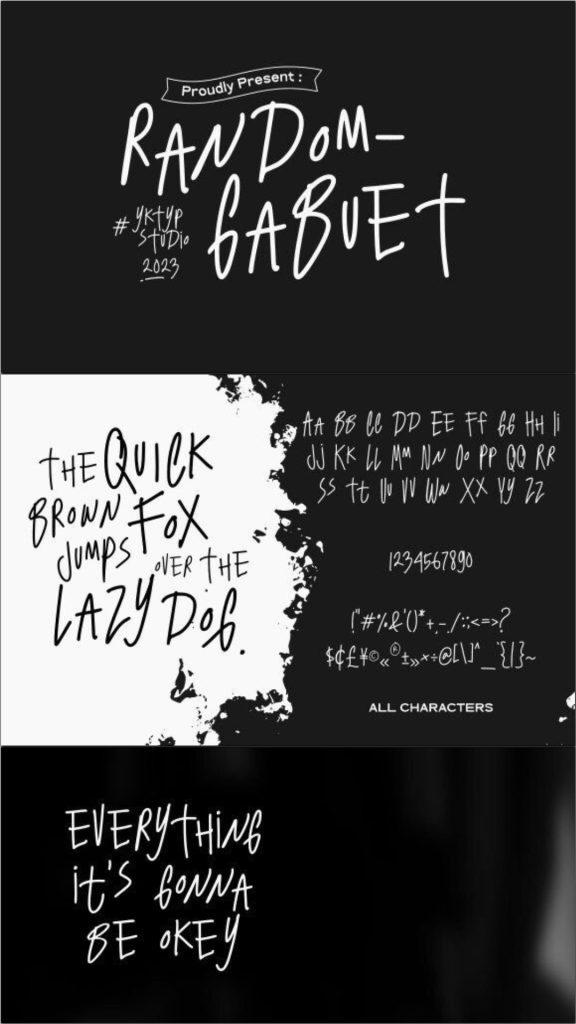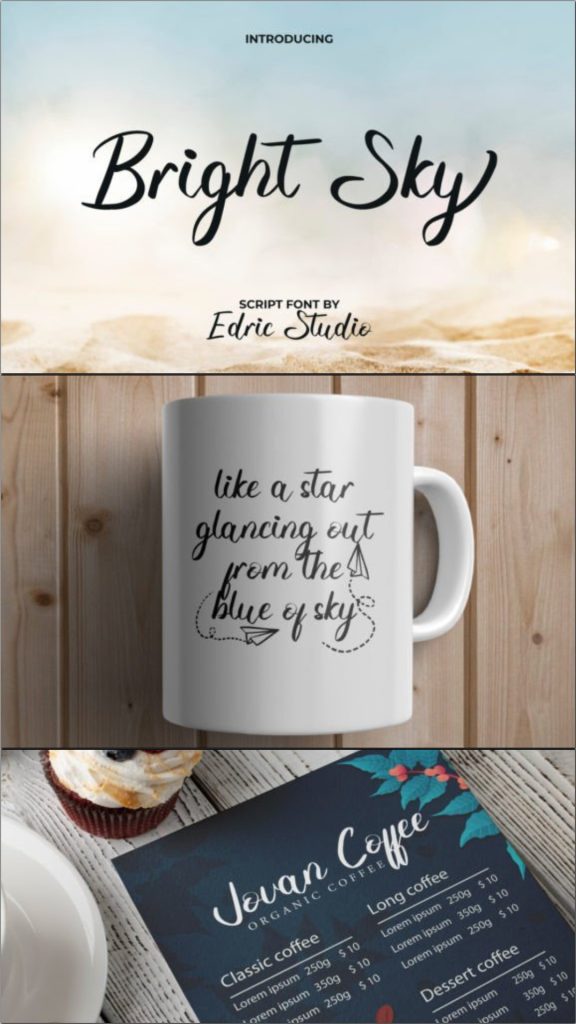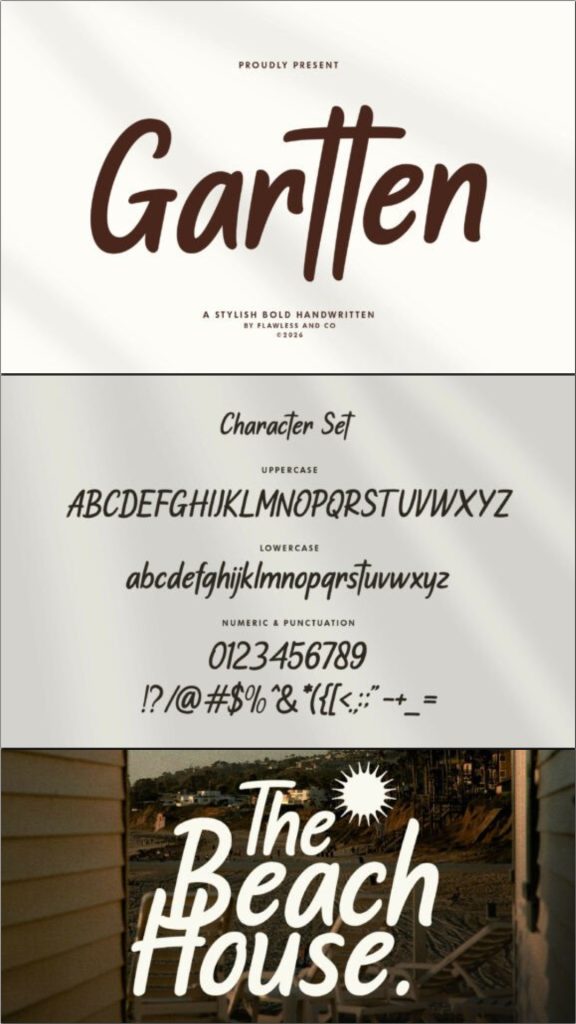
When I work on coffee shop branding projects, one thing becomes obvious very quickly: people often remember the feeling of a café before they remember the coffee itself.
The atmosphere starts long before someone takes their first sip. It begins with the storefront sign, the logo on the takeaway cup, the menu board hanging behind the counter, and even the packaging customers bring home. Typography quietly shapes all of those touchpoints.
That's why choosing the right font for a coffee shop logo isn't just a design decision. It's a branding decision.
Some typefaces instantly communicate artisan craftsmanship. Others feel modern, minimalist, playful, vintage, or upscale. The goal isn't simply finding a beautiful font. It's finding one that reflects the experience customers can expect when they walk through the door.
1. Coffee Shop
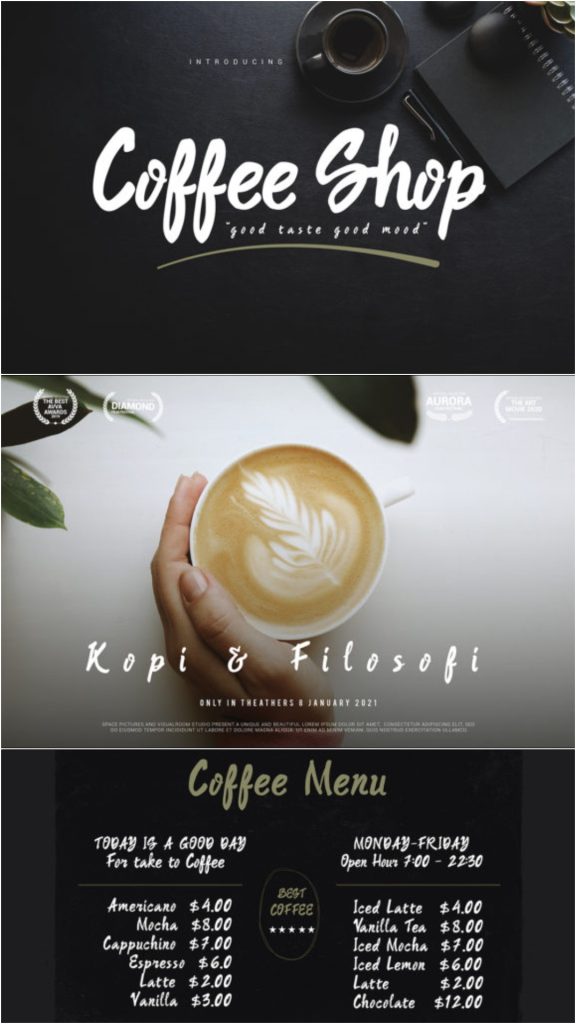
If the goal is authenticity, Coffee Shop is one of the first fonts I'd look at.
The brush-style lettering feels natural and handcrafted, almost like something written on a chalkboard before the morning rush. It carries that independent café energy many specialty coffee brands try to achieve.
What I particularly like is that it retains good readability despite its casual appearance. Some brush fonts become messy at smaller sizes, but this one stays fairly balanced.
Best suited for:
- Artisan coffee shops
- Small independent cafés
- Specialty roasters
- Organic coffee brands
The font pairs especially well with earthy color palettes, recycled packaging, kraft paper labels, and simple logo marks.
2. Coffee Shop (Modern Calligraphy Version)
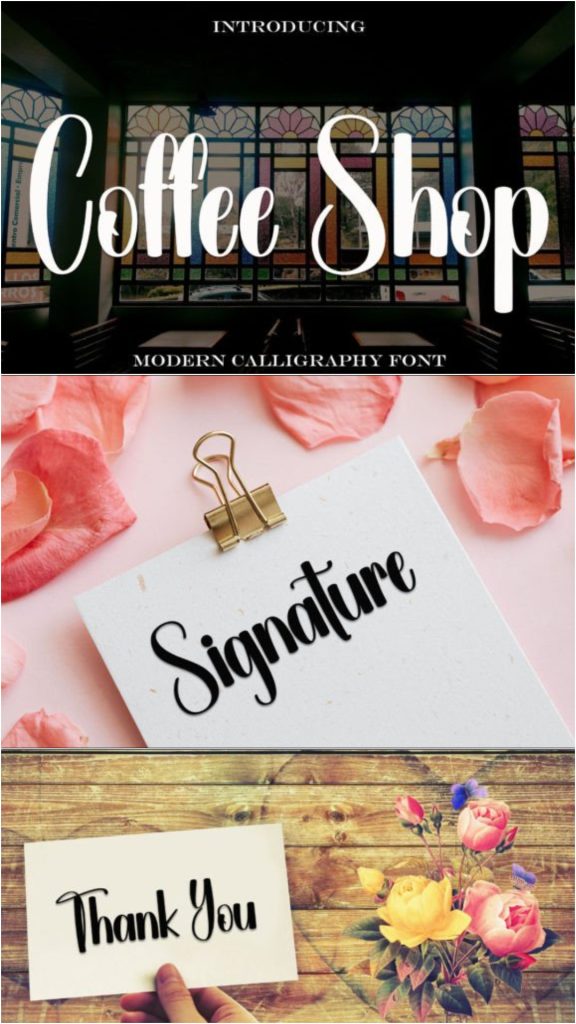
This variation takes the same coffee-inspired personality and gives it a more refined appearance.
The flowing strokes and elegant curves feel ideal for boutique cafés, premium espresso bars, or coffee lounges that want a slightly elevated image.
I often find that luxury cafés lean too far into formal typography and end up feeling cold. This style manages to stay sophisticated without losing warmth.
It works particularly well on:
- Storefront signage
- Coffee cup branding
- Menu designs
- Social media graphics
3. Crayone
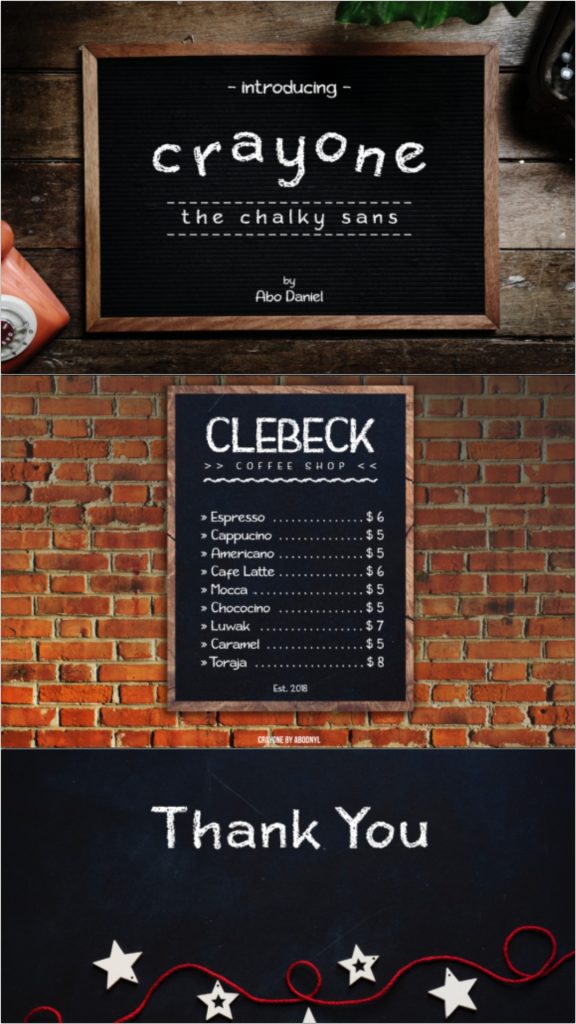
Crayone immediately reminds me of handwritten menu boards found in cozy neighborhood cafés.
The textured letterforms create a slightly imperfect look that feels genuine rather than manufactured. That small amount of roughness adds character.
For coffee brands that emphasize community, creativity, and relaxed experiences, this font has a lot of personality.
One thing I appreciate is that the texture adds visual interest without overwhelming the lettering.
Best for:
- Community cafés
- Creative coffee houses
- Local gathering spaces
- Casual coffee brands
4. The Name on My Coffee Cup
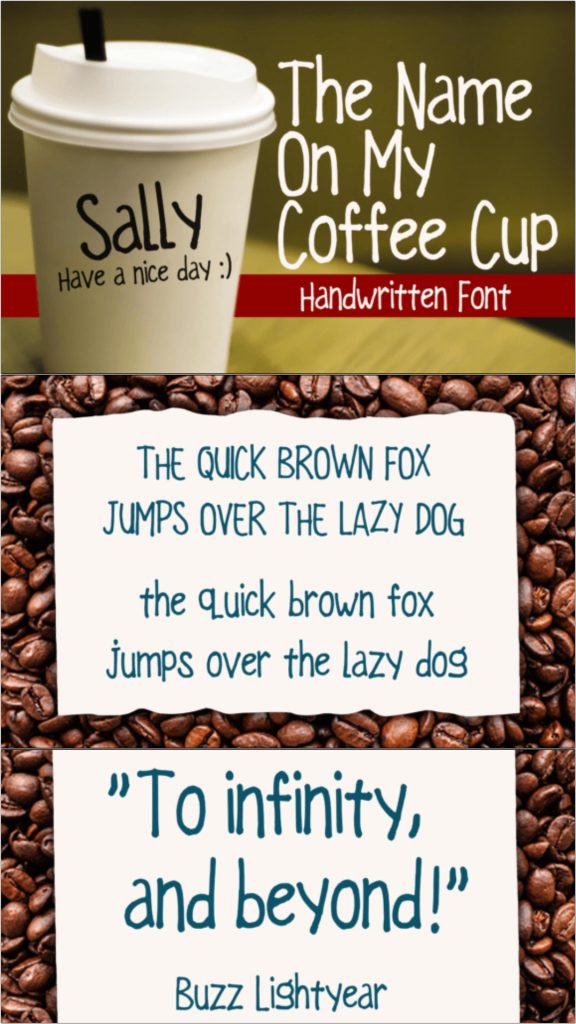
Few coffee-related fonts feel as charming as this one.
The handwritten style instantly evokes a familiar café experience: seeing your name written across a takeaway cup.
That emotional connection makes it particularly effective for brands focused on hospitality and customer relationships.
I can easily imagine this font being used by cafés that want customers to feel like regulars, even during their first visit.
It feels:
- Friendly
- Personal
- Relaxed
- Approachable
This isn't a luxury coffee font. It's a people-focused coffee font.
5. Food Delight
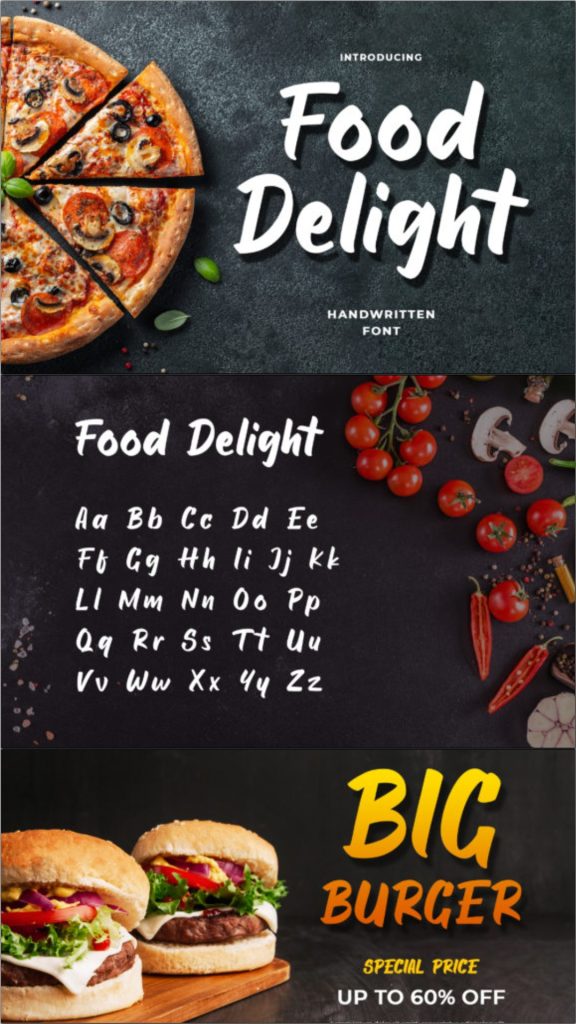
Although originally designed with broader food branding in mind, Food Delight translates surprisingly well to coffee shop logos.
The thick handwritten strokes create strong visual weight while maintaining an approachable personality.
I often see cafés expanding beyond coffee into pastries, brunch menus, sandwiches, and desserts. Fonts like this help support that broader food-and-drink identity.
Its bold appearance also makes it effective for:
- Window graphics
- Menu headers
- Packaging
- Outdoor signage
6. Single Coffee
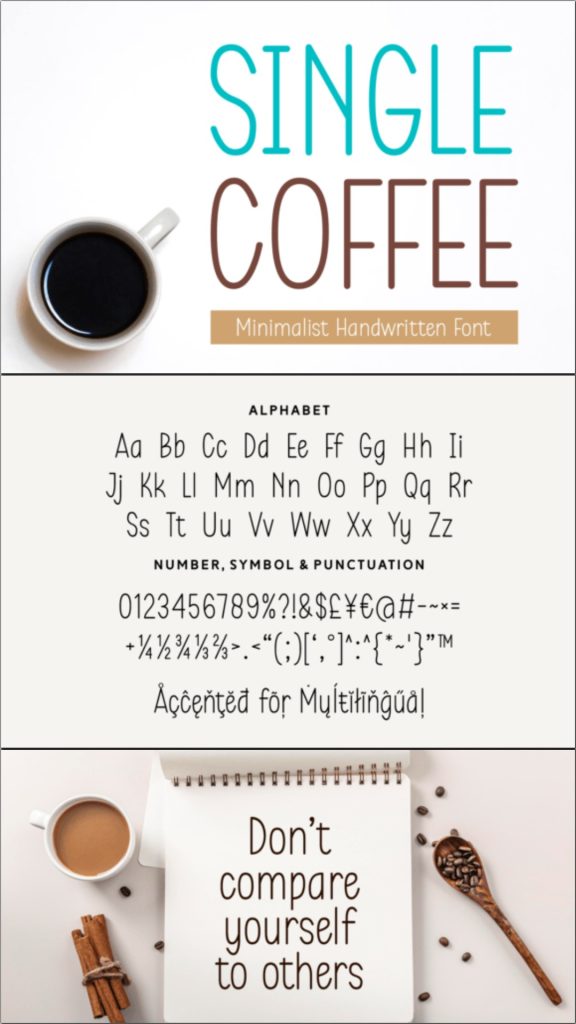
Not every coffee brand needs a rustic or handcrafted aesthetic.
Some cafés want clean lines, modern interiors, and minimalist branding. Single Coffee fits that direction beautifully.
The handwritten influence is still present, but it's restrained.
That balance gives the font impressive versatility across different applications.
I especially like it for:
- Modern specialty coffee brands
- Urban espresso bars
- Scandinavian-inspired cafés
5. What makes a coffee shop logo memorable?
A memorable coffee shop logo combines distinctive typography, strong brand personality, and consistent visual presentation. The right font helps communicate the café's atmosphere, whether that's cozy and handcrafted, modern and sophisticated, or playful and creative, making the brand easier for customers to remember.